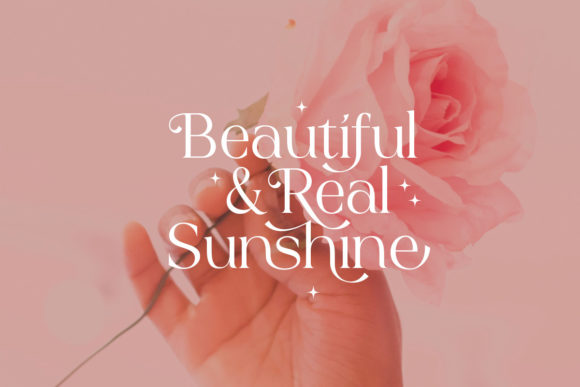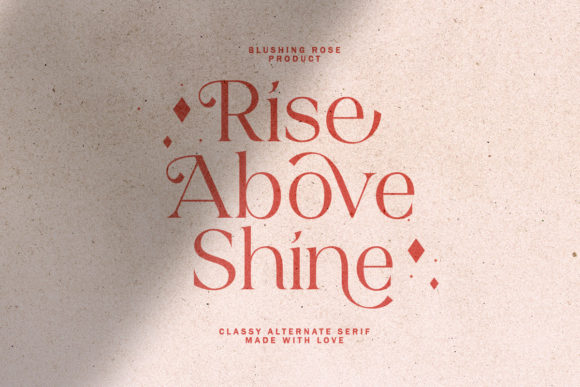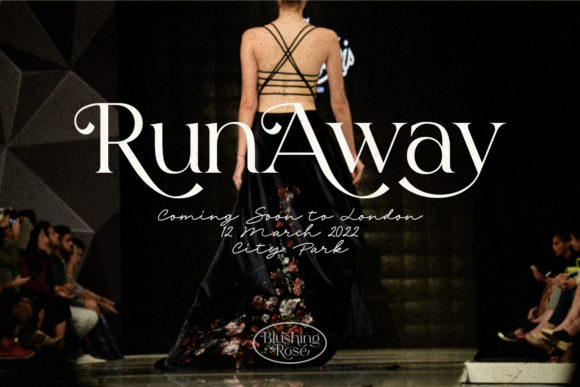
Introduction to Blushing Rose Font
Blushing Rose is an elegant and stylish serif font.
Trendy and stylish, this font will elevate each of your creations Add this font to your most creative ideas, and notice how it makes them stand out.
Why Choose Blushing Rose Font?
Blushing Rose Font offers exceptional quality and versatility, making it a valuable addition to your design toolkit. Whether you’re creating for personal projects or commercial use, Blushing Rose Font delivers professional results.